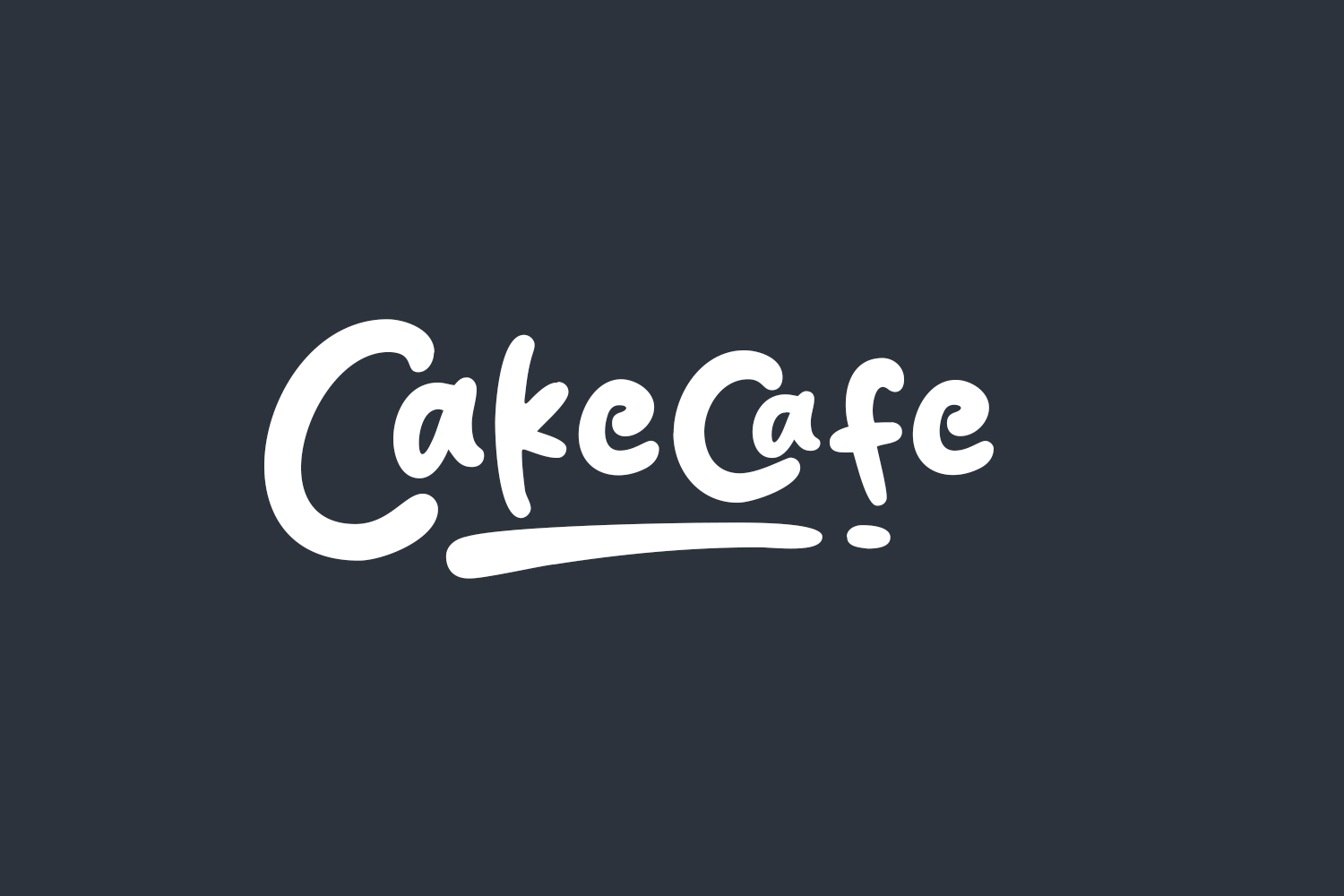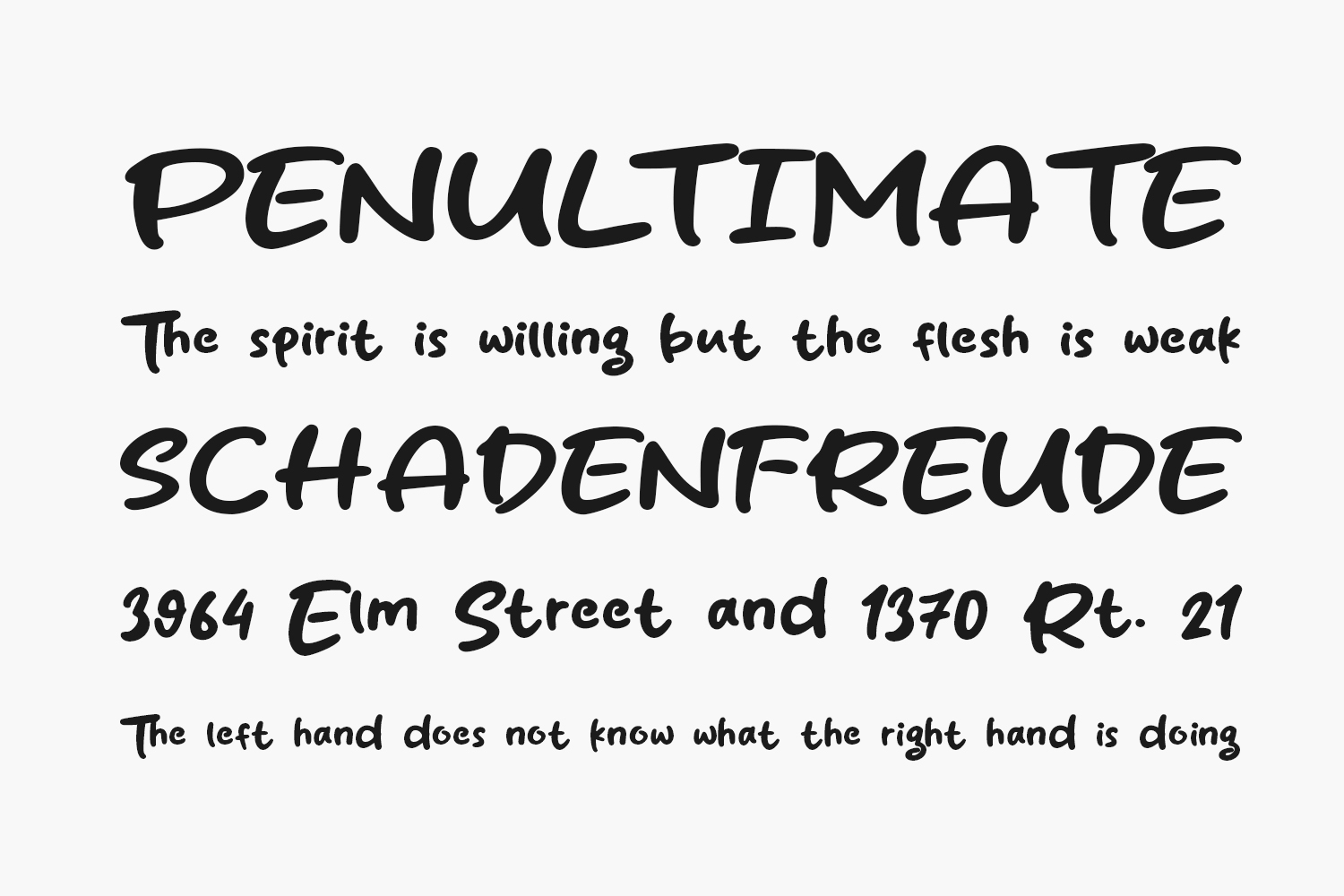
Cakecafe Free Font is a modern and fancy display font perfect for posters, logos, magazines, book covers, banners, and many more! Get this cute display font, and use it to create lovely designs. Cakecafe Free Font is free for personal or commercial use.